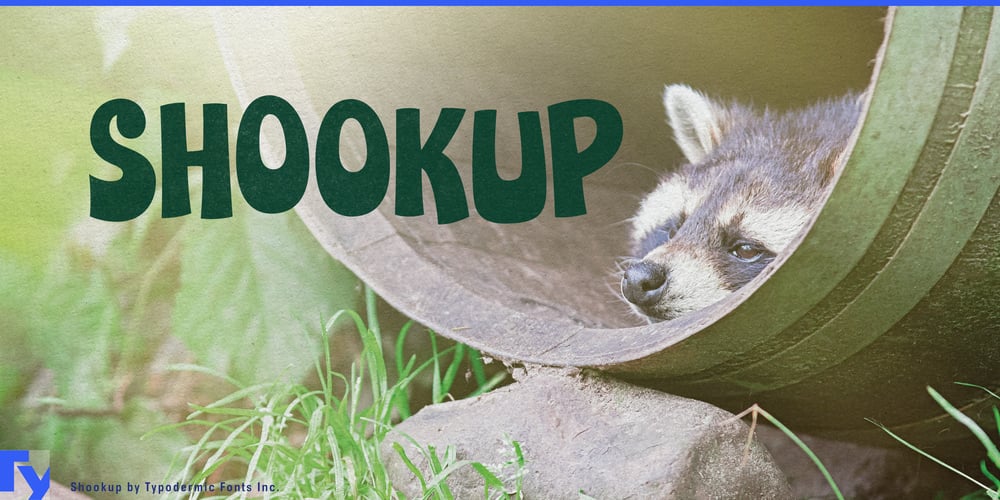
Shookup Font Family was designed by Ray Larabie and published by Typodermic. Shookup contains 1 styles and family package options. Prepare for a typographic joyride with Shookup, the font that turns every word into a carnival of letters. This is a celebration, a visual party that erupts on your screen or page with irresistible energy.Imagine letters that seem to bounce and sway, as if they’re grooving to an unheard beat. That’s the magic of Shookup. Each character bursts with personality, transforming mundane text into a lively spectacle that demands attention and sparks joy. It’s the typographic equivalent of a surprise confetti explosion—unexpected, delightful, and impossible to ignore. But Shookup’s genius goes beyond its exuberant appearance. In OpenType-aware programs, it unleashes its secret weapon: automatic letter and numeral jumbling. This feature turns every line of text into a unique performance, with characters playfully jostling for position. It’s controlled chaos at its finest, ensuring that no two uses of Shookup ever look quite the same.Don’t let its playful demeanor fool you—Shookup is a versatility virtuoso. From whimsical children’s book covers to eye-catching event posters, from quirky brand identities to scroll-stopping social media graphics, this font adapts with chameleon-like ease. It’s equally at home adding a splash of fun to corporate communications as it is headlining a music festival lineup. Shookup’s linguistic acrobatics are equally impressive. It brings its bouncy charm to a vast array of Latin-based European writing systems, from Afaan Oromo to Zuni. This font doesn’t just cross language barriers—it leaps over them with a gleeful somersault, ensuring your message retains its vibrant energy across cultures.Choose Shookup when you want your typography to do more than communicate—when you want it to entertain, engage, and elate. It’s a mood-lifter, a smile-inducer, a guaranteed double-take generator. Let Shookup infuse your designs with its infectious energy, and watch as your audience is drawn into its joyful, jumbled world.